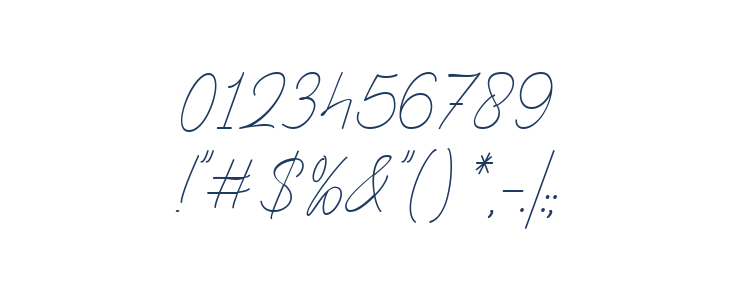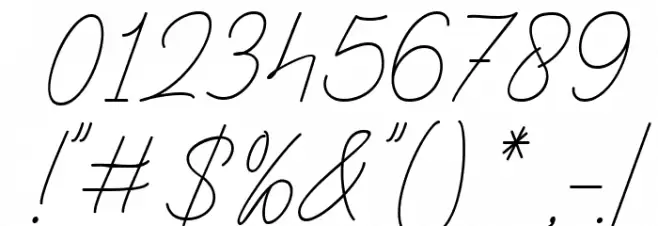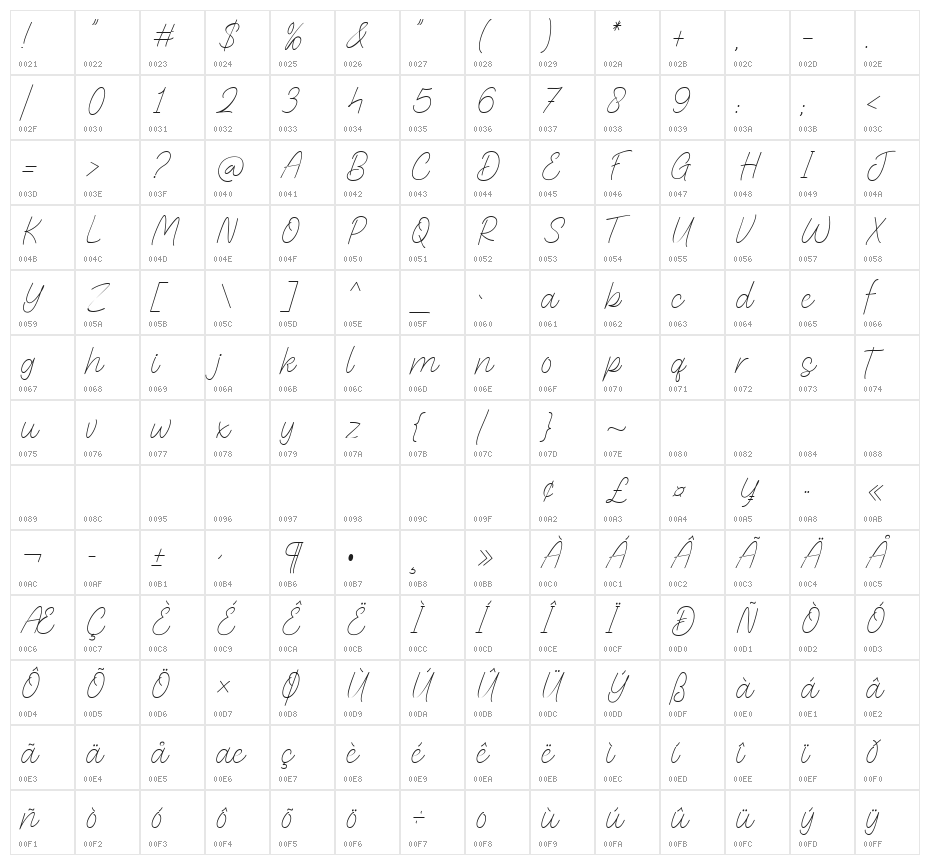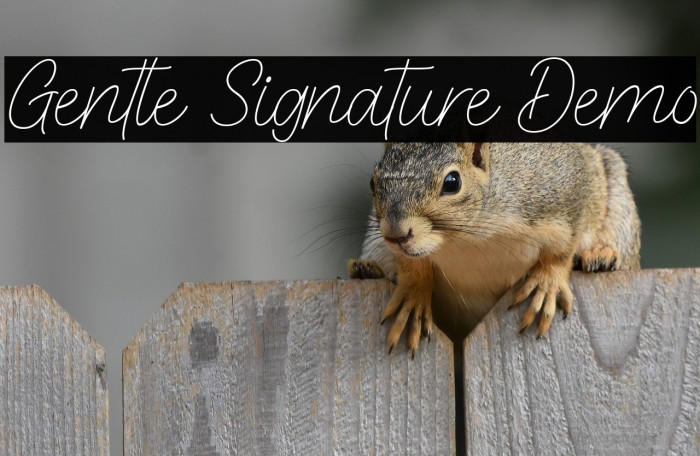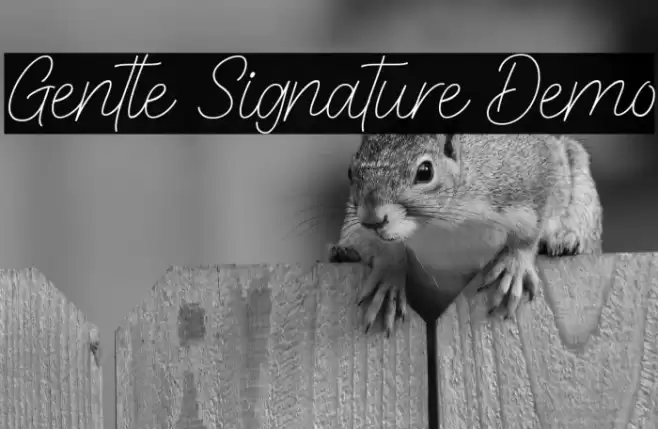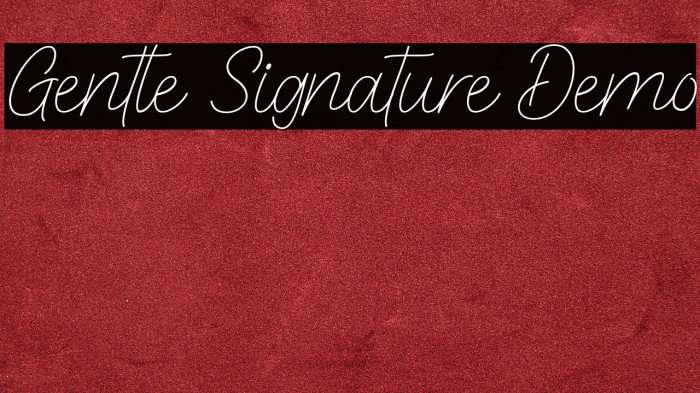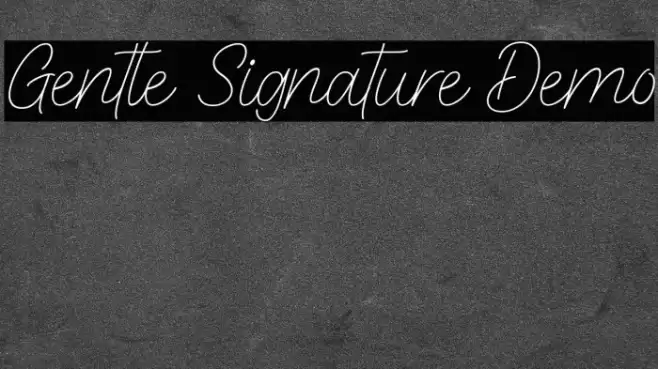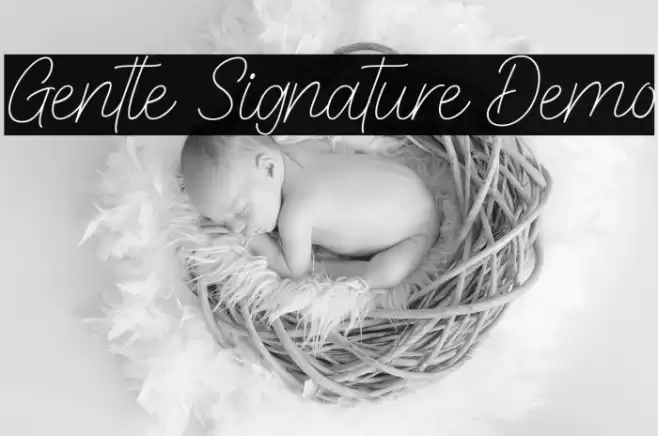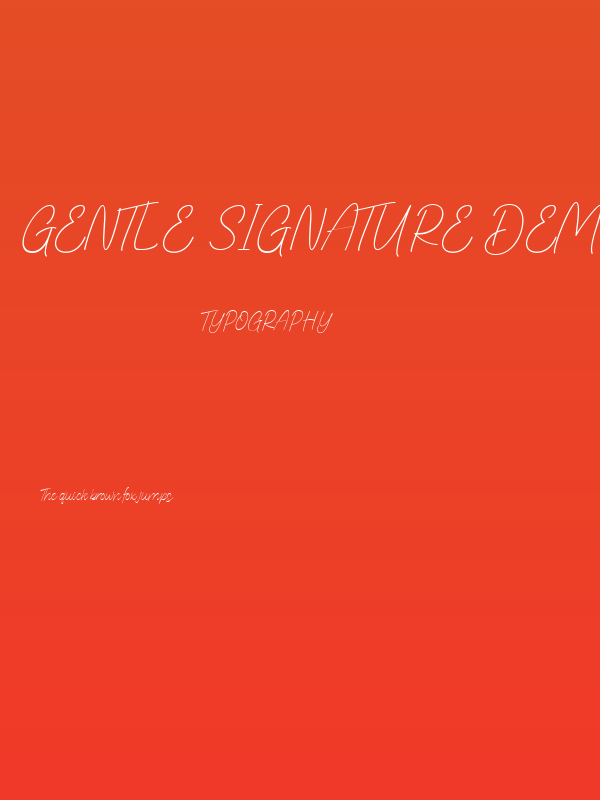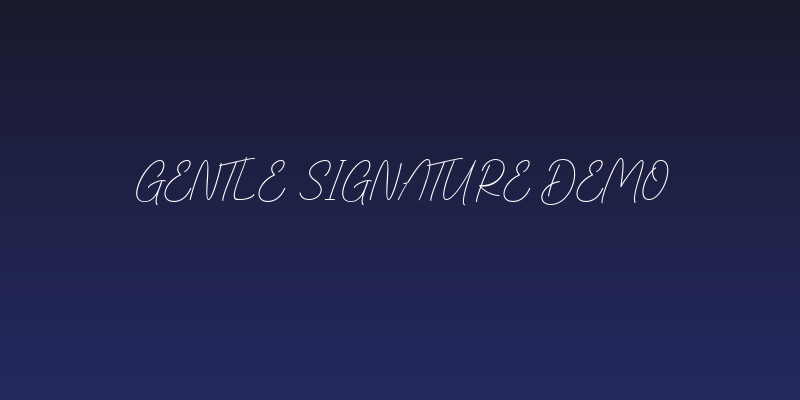
Gentle Signature Demo Font
Gentle Signature Demo Description
This font exudes elegance and sophistication with its fluid, cursive style. The characters are gracefully connected, creating a seamless flow that mimics the natural movement of handwriting. The uppercase letters stand tall with a slight slant, while the lowercase letters maintain a consistent rhythm and balance. Numbers and special characters are crafted with the same attention to detail, ensuring uniformity across all elements. The thin strokes and delicate curves give it a refined appearance, making it ideal for projects that require a personal touch.
Overall StyleElegant
Use CaseLogos, Invitations, Personal Branding
Proposed ProjectsIdeal for wedding invitations, personal branding, elegant stationery, and signature logos.